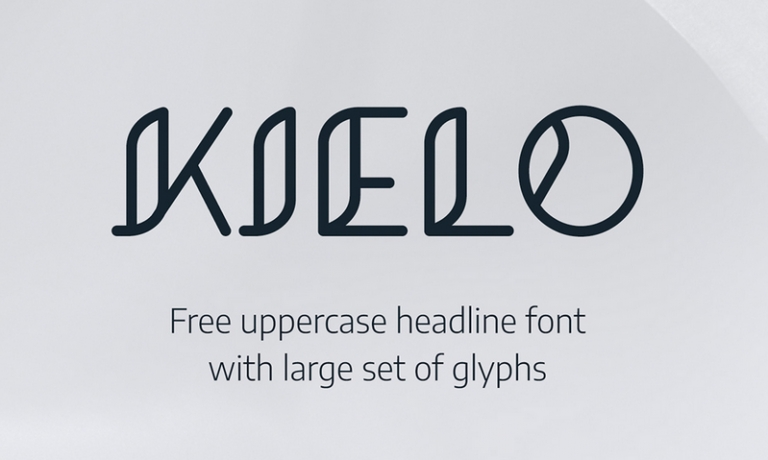
Kielo Typeface
A free uppercase headline font with large set of glyphs. It’s free for all purposes of your work.  Introducing Kielo Font. It ‘s perfect for organic products, cards, posters, wall art, branding, diy projects, greeting cards, labels, quotes, packaging, websites and much more.